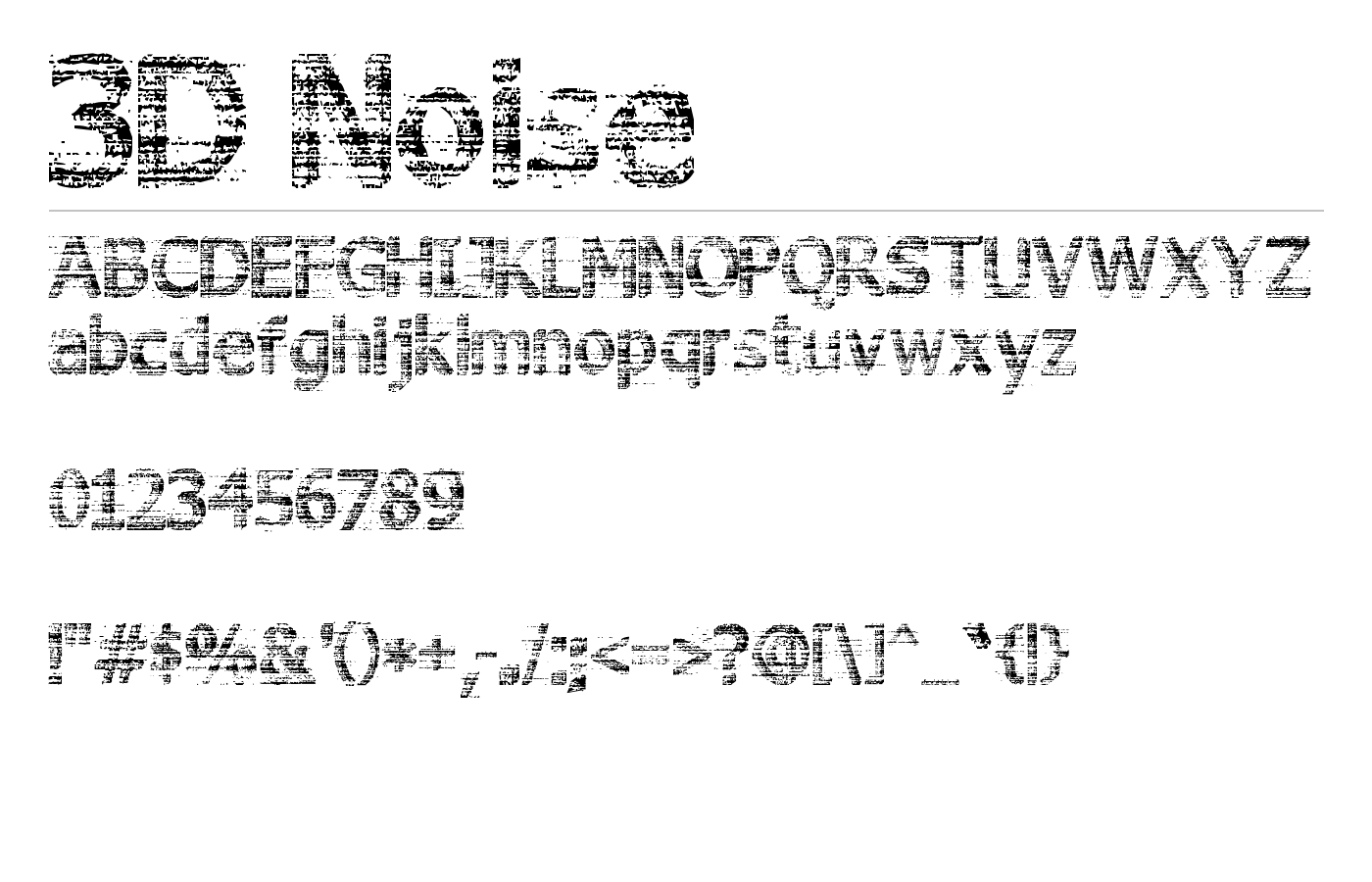
3D Noise Font is a bold, sans serif typeface with a distressed, textured appearance that creates a dynamic and edgy look. Its irregular, grainy pattern evokes a sense of digital glitch or static interference, making it a great choice for modern, urban, or tech-oriented designs looking to convey energy and rawness. This font works well for impactful headlines, posters, and branding where a striking, unconventional style is desired.
3D Noise Font